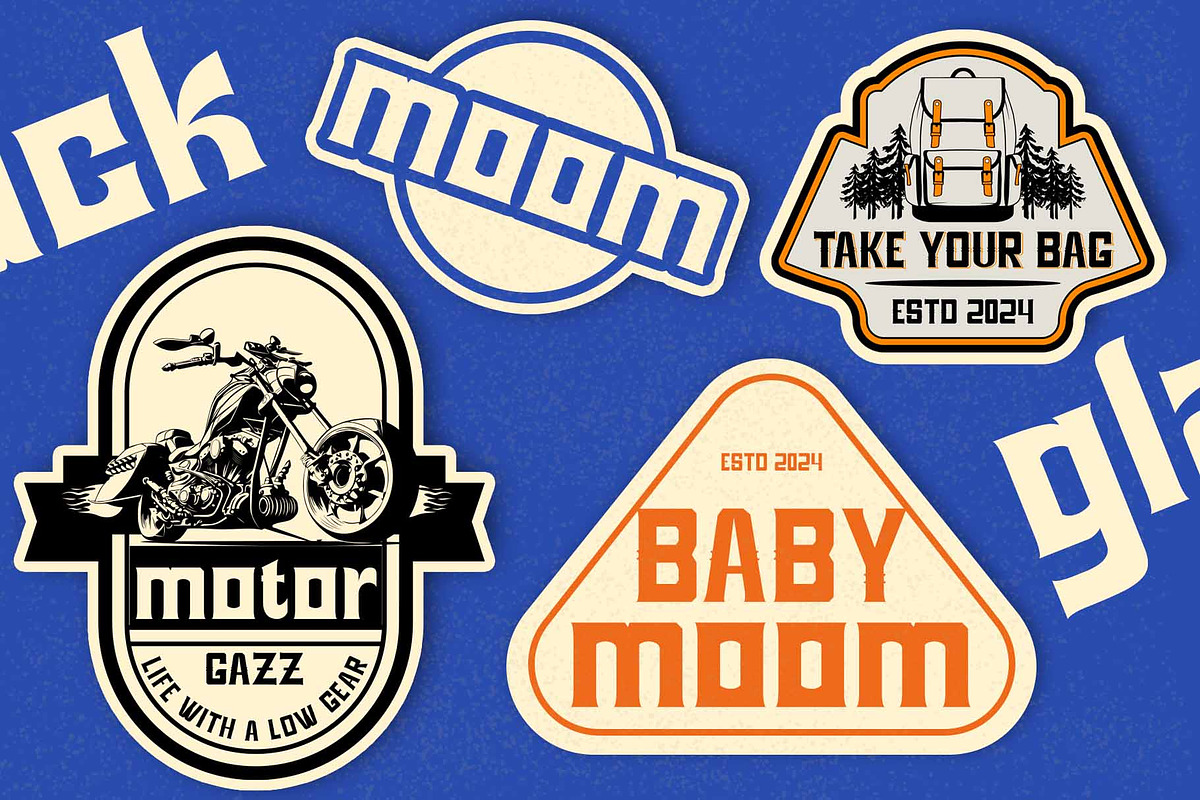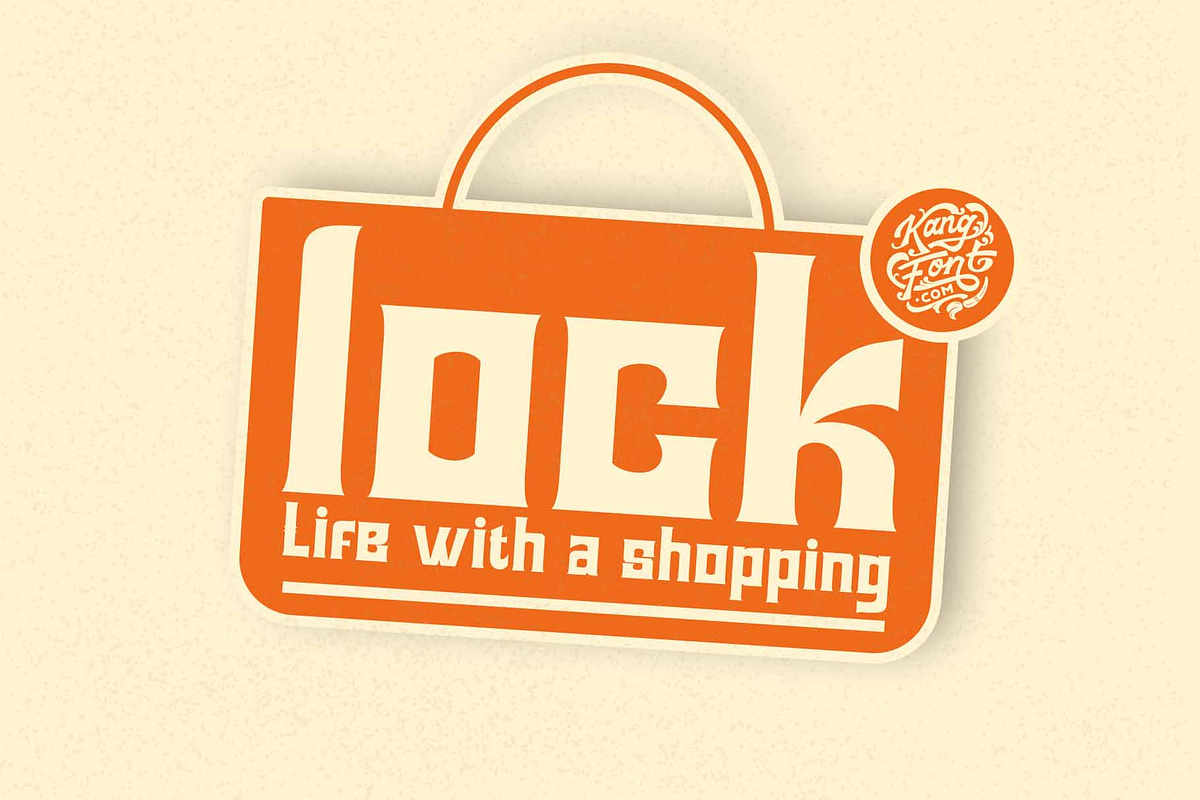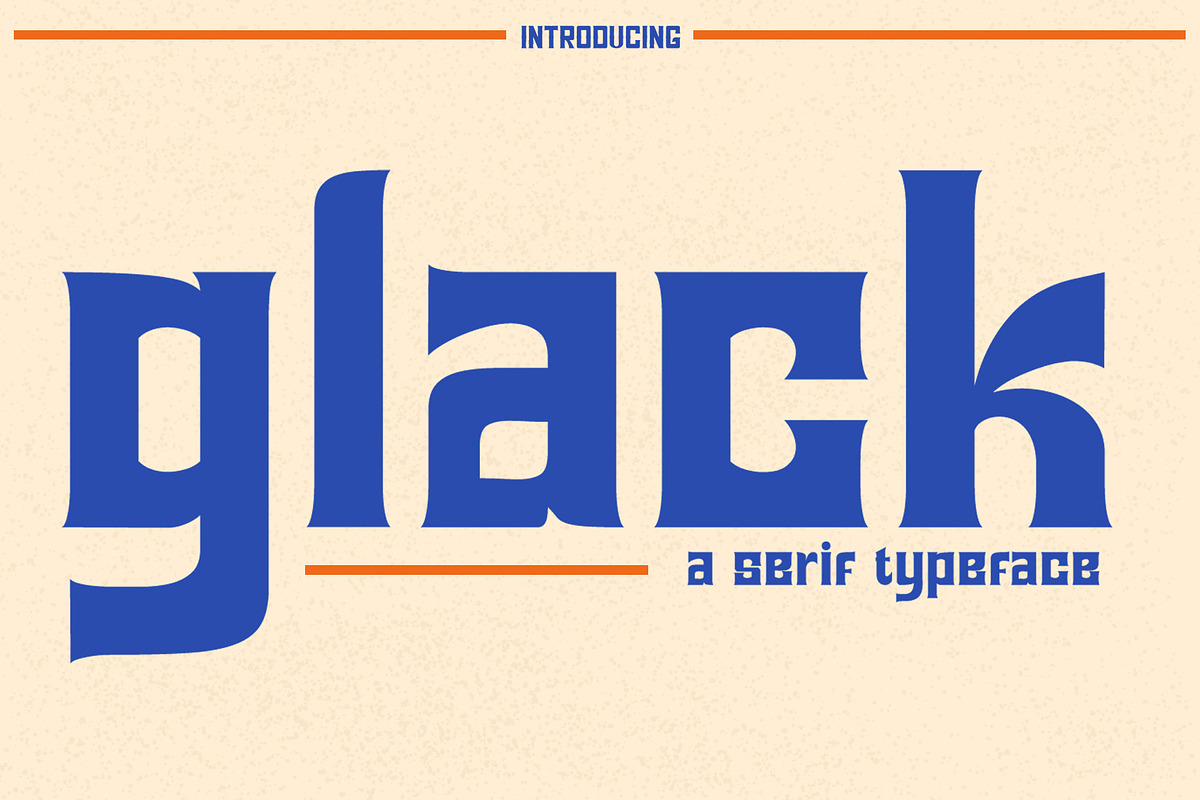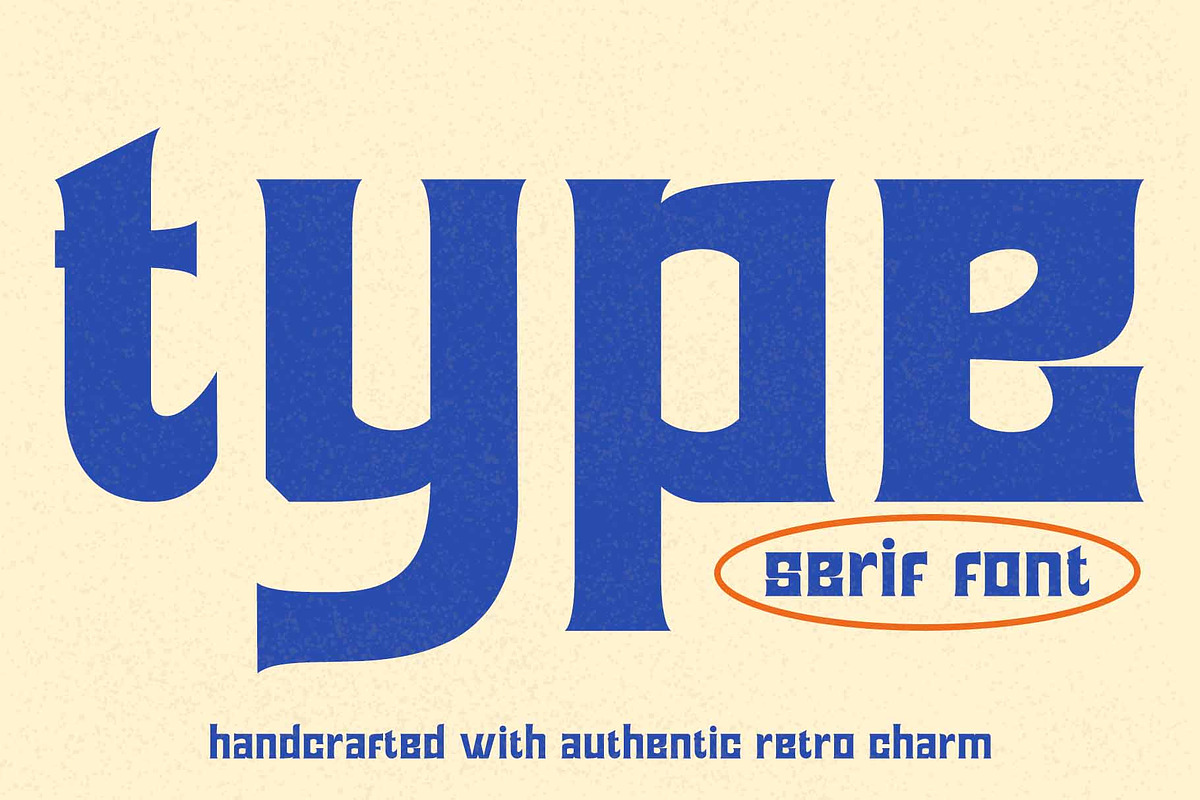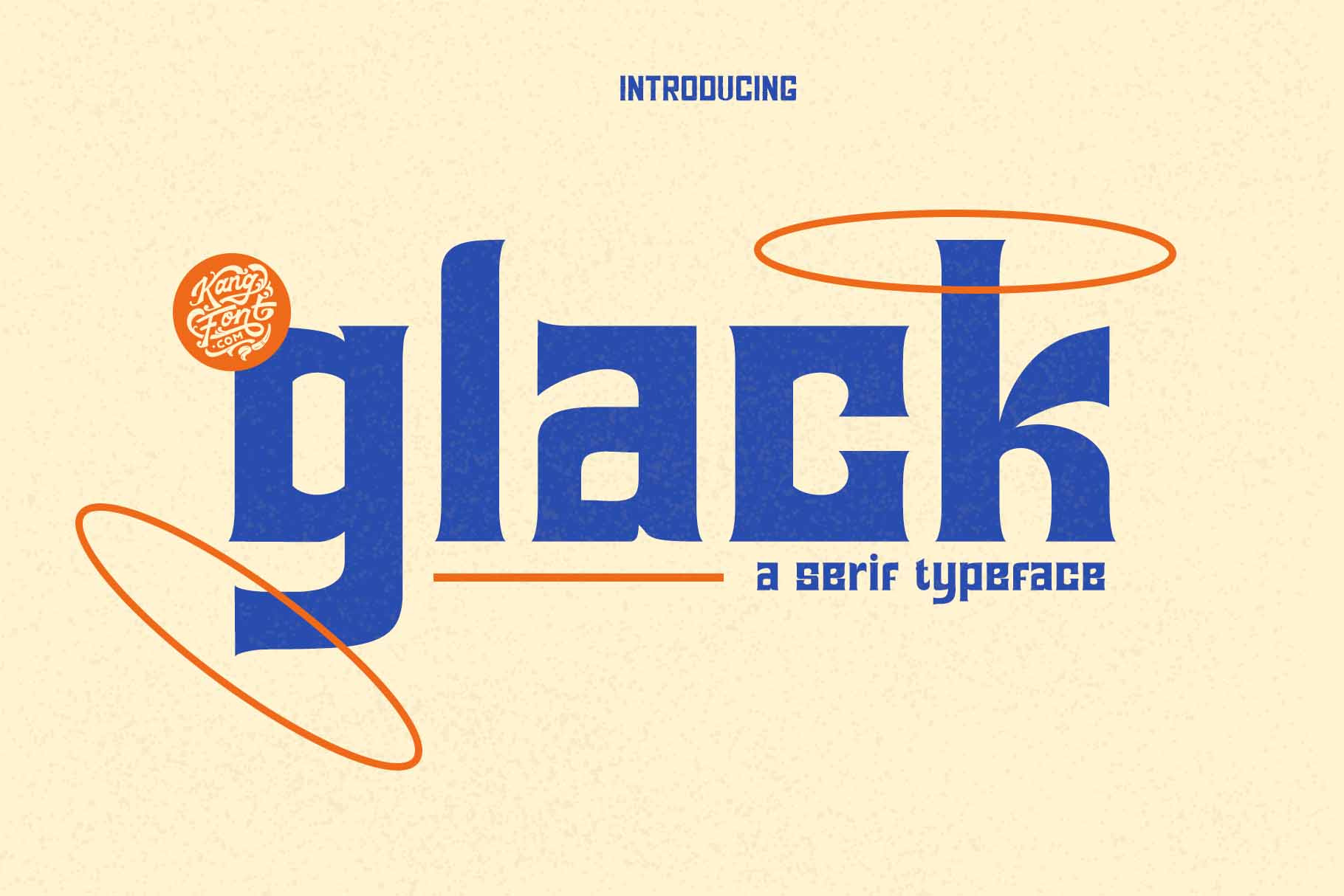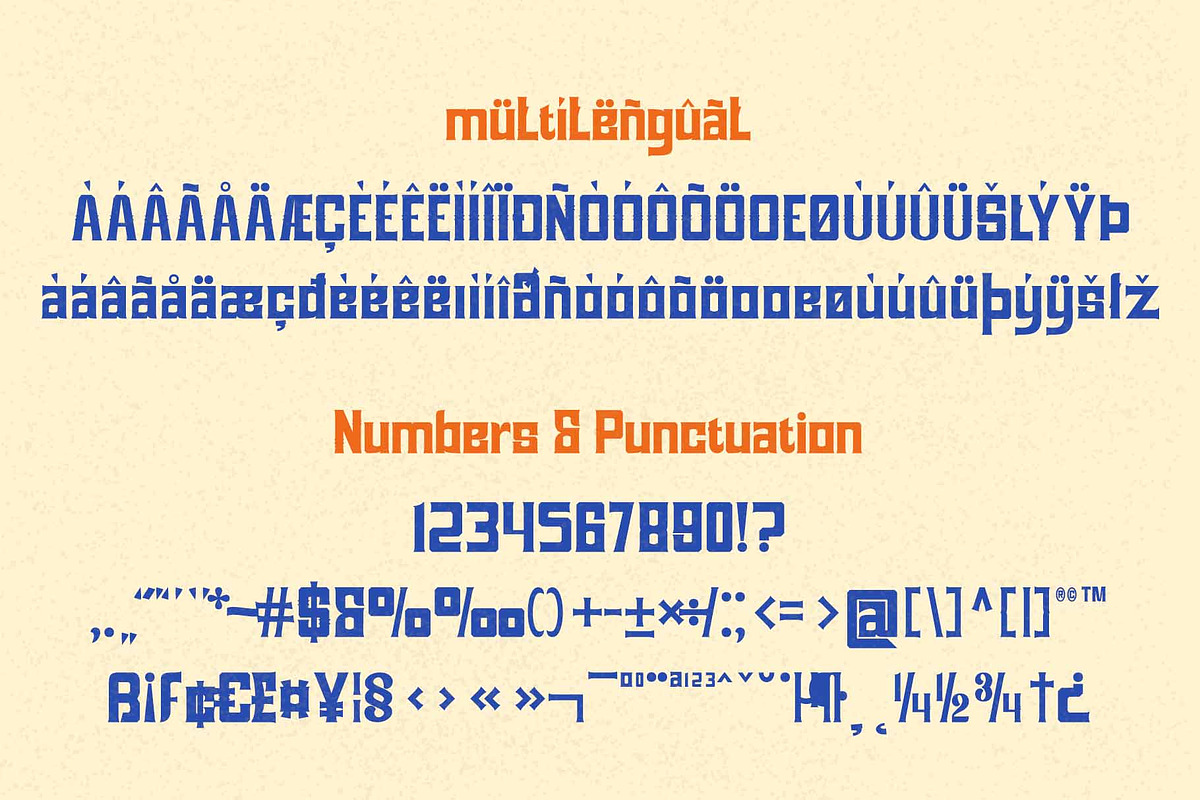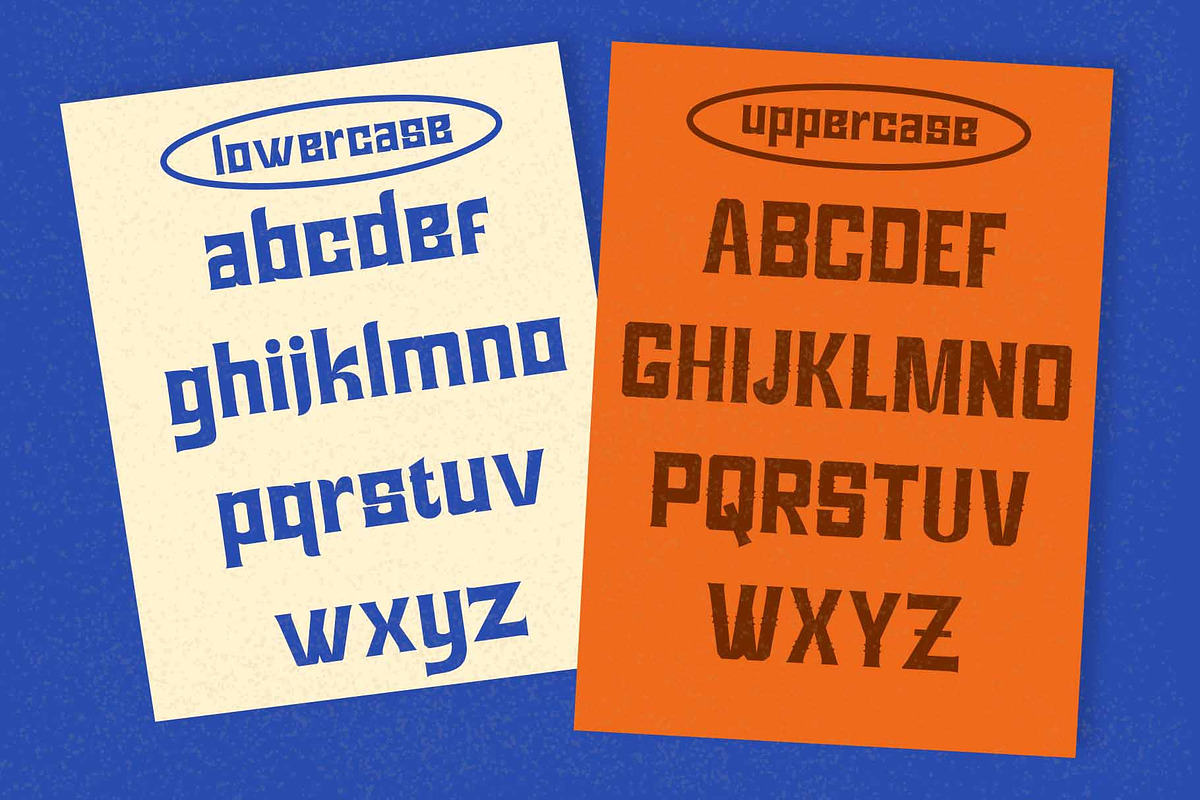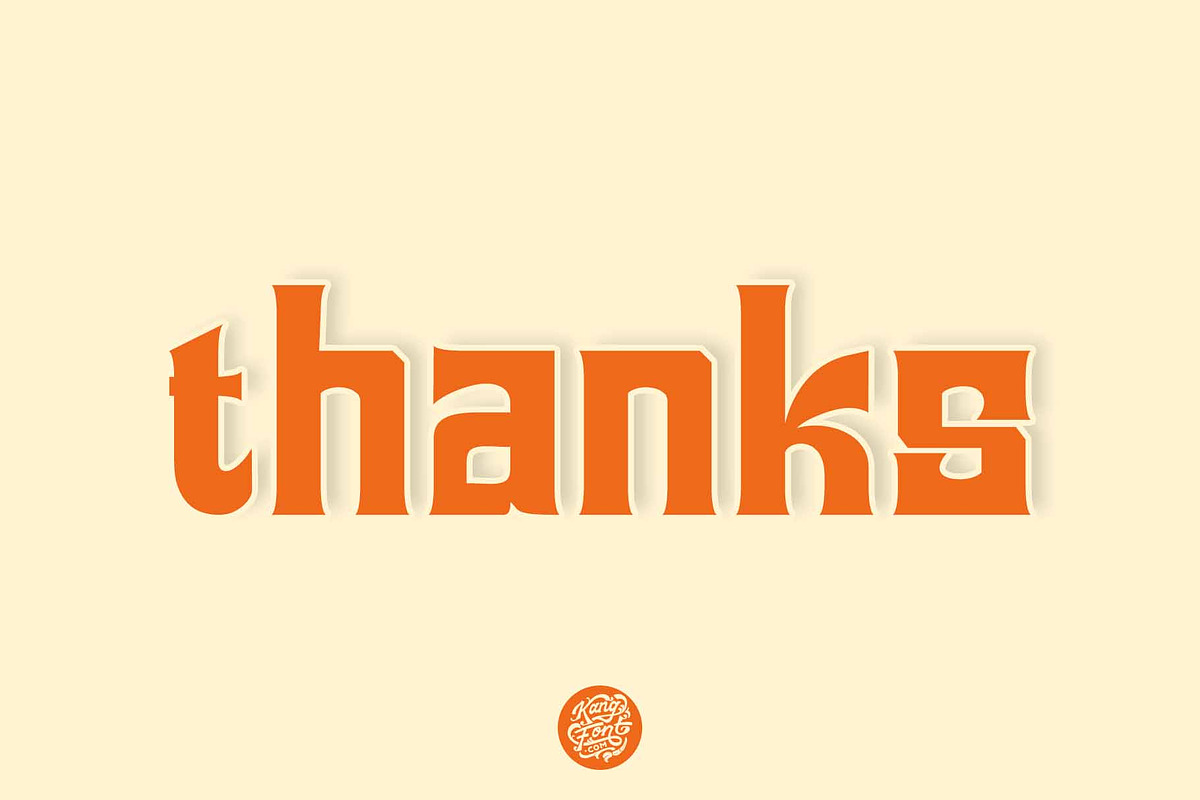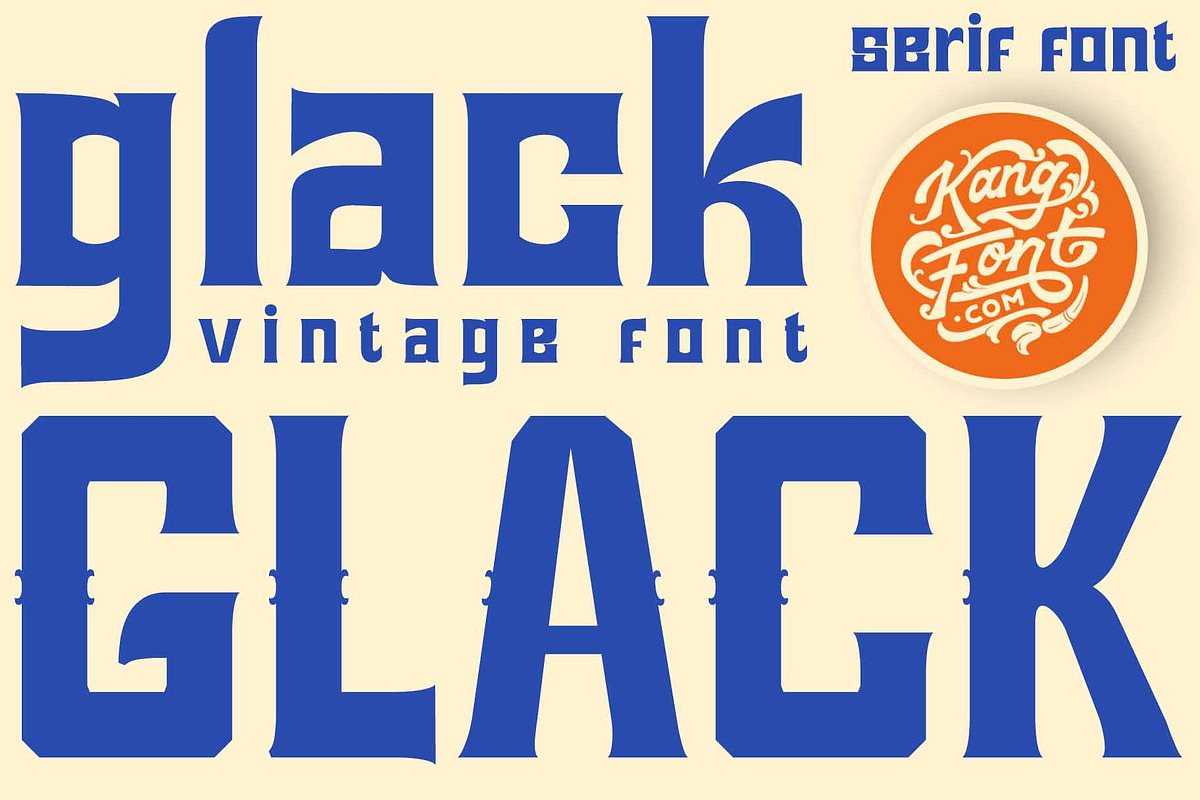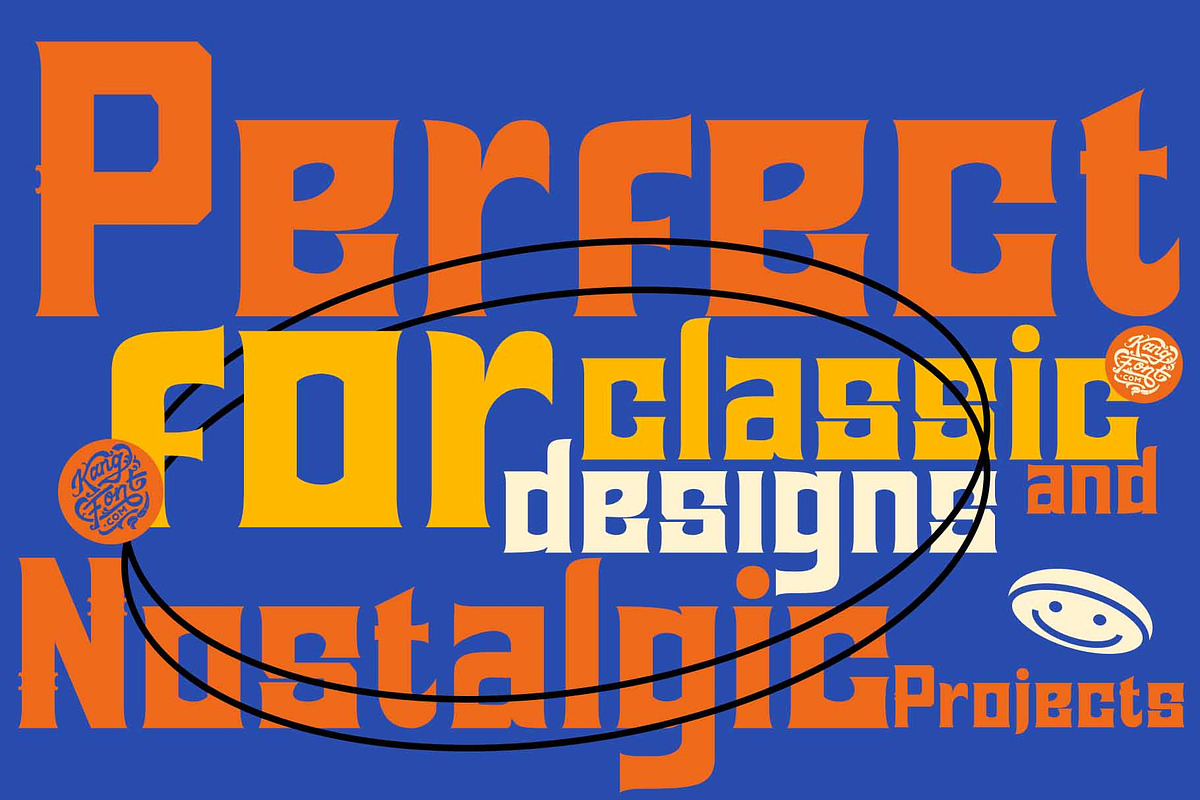
Glack – Serif Vintage Font
Glack is a modern serif typeface characterized by bold and masculine features. This font is designed to deliver a strong and confident impression, making it ideal for logo designs, branding, posters, and other creative projects. With its unique serif style and dynamic curves, Glack combines traditional elements with a contemporary touch, creating a visual aesthetic that is both elegant and full of character. The dominant blue presentation emphasizes the font's professional and reliable qualities.